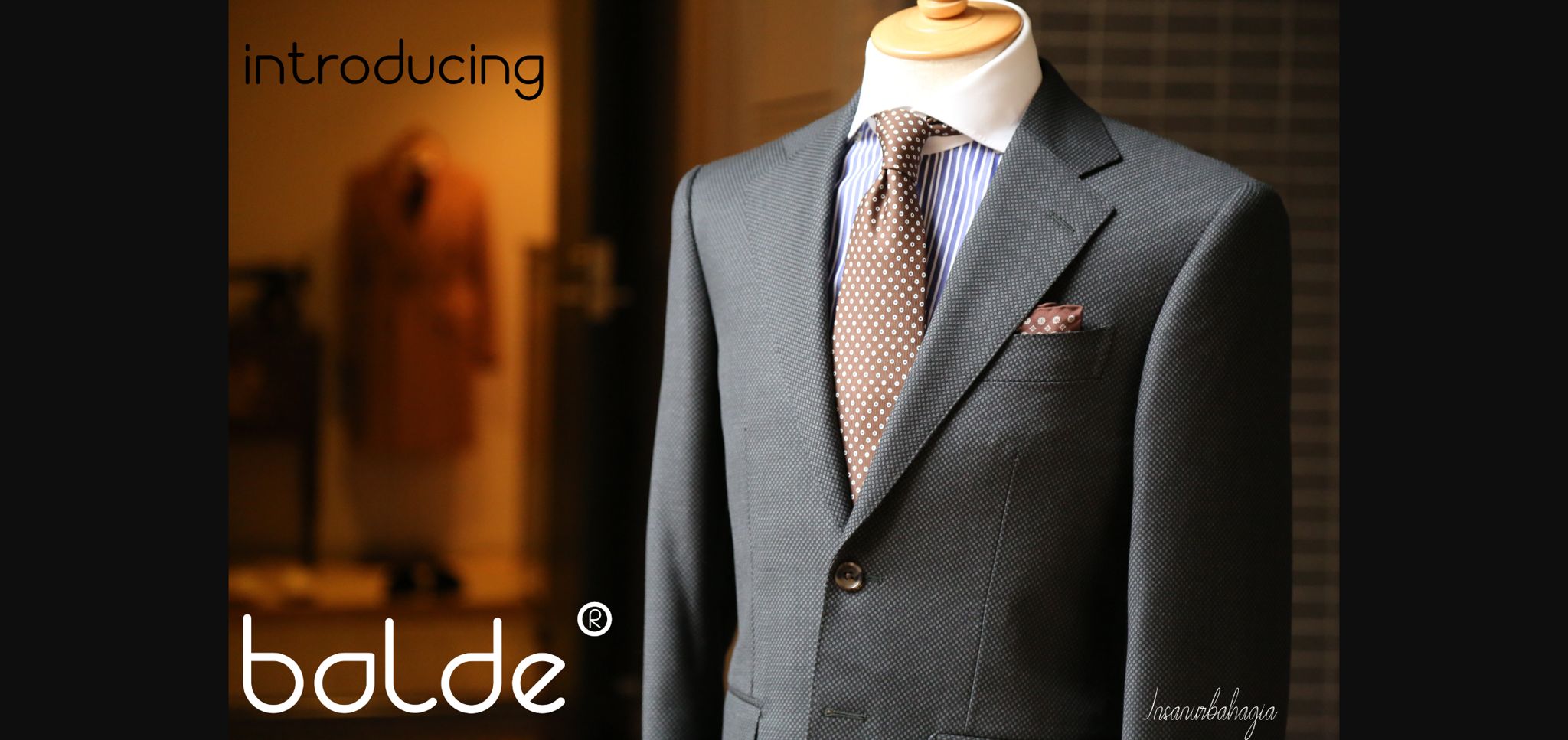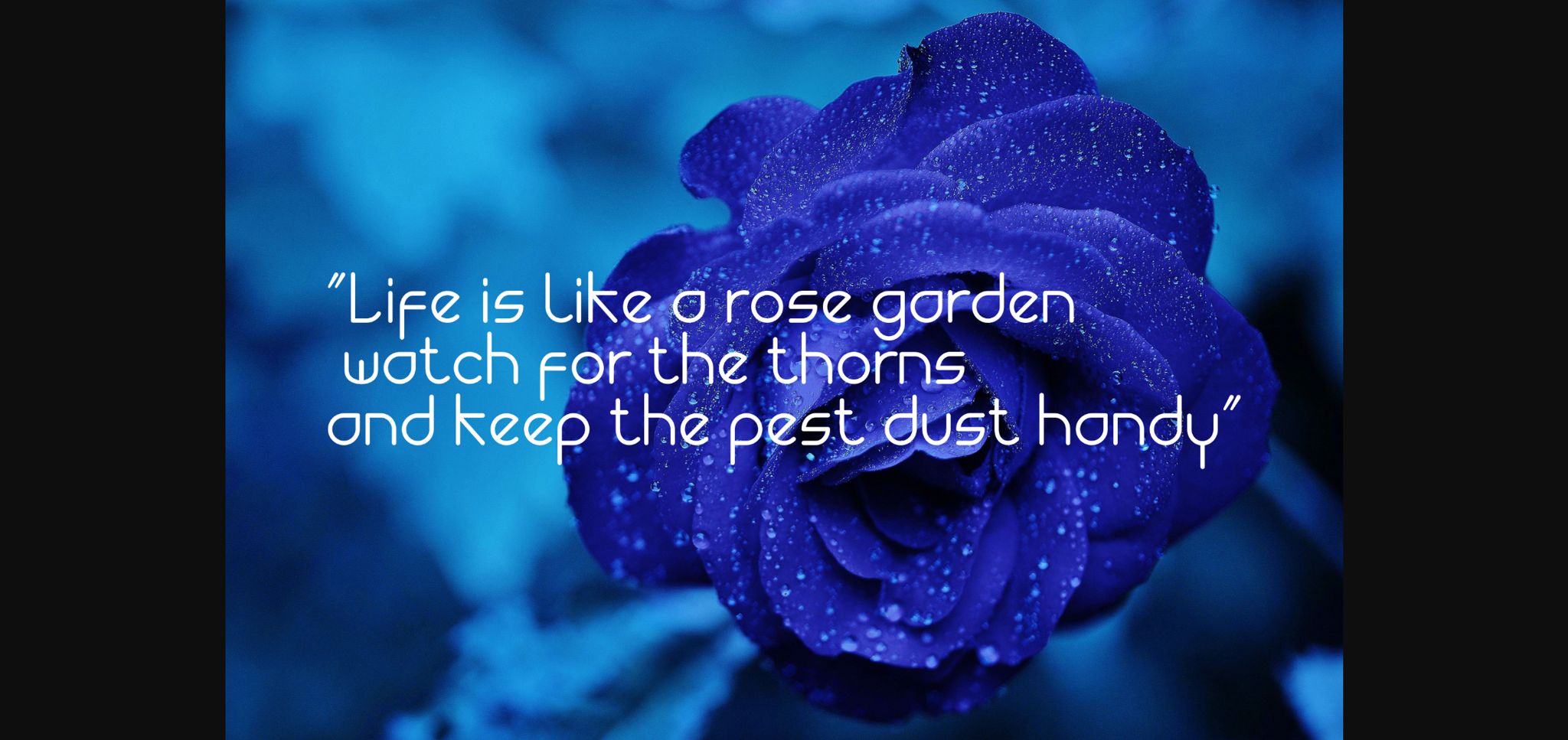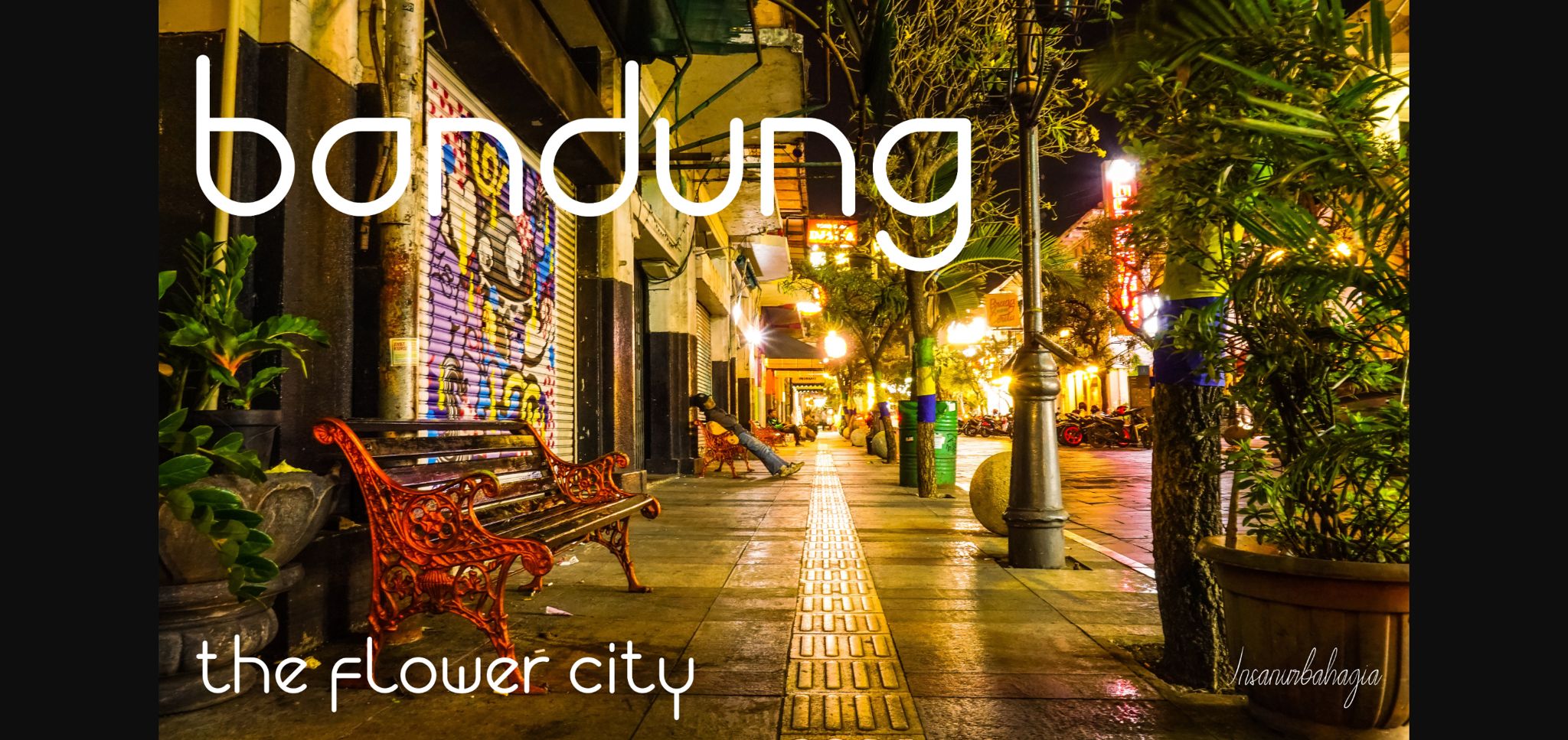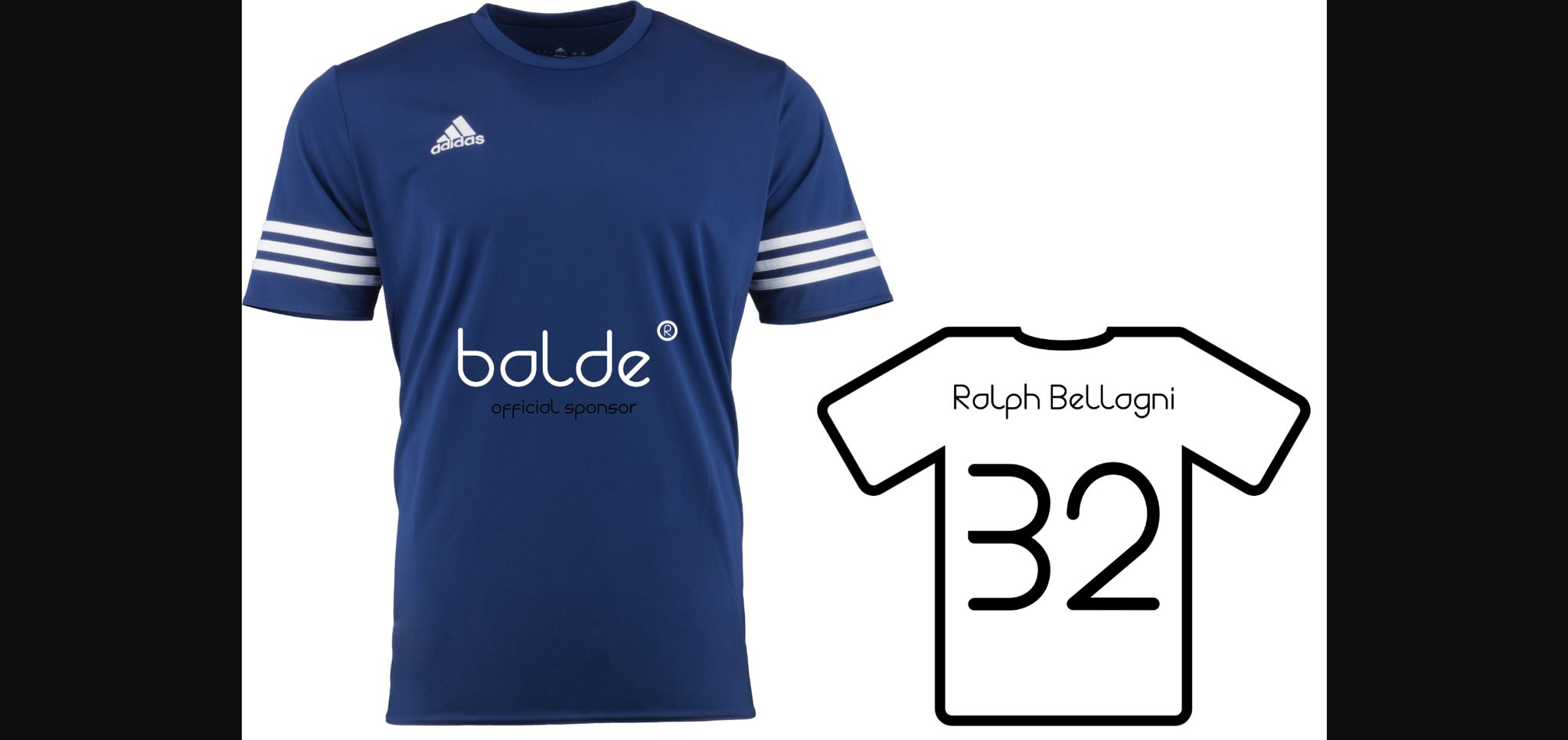
About Balde Font
Balde is a neat and minimal sans serif font. Fall in love with its incredibly versatile style and use it to create spectacular designs!